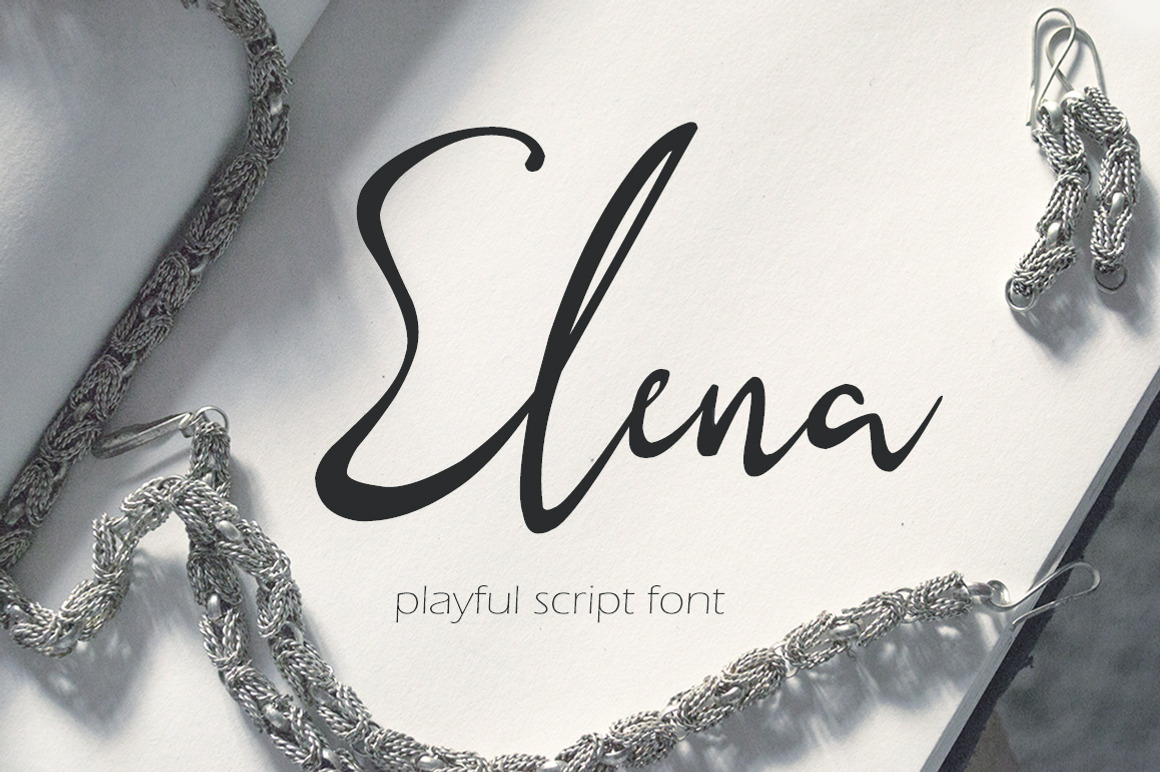
Elena - Playful Script Font is perfect for children's book covers, playful brand logos, birthday party invitations, craft project materials, whimsical greeting cards, toy packaging designs, childcare center signage, creative workshop branding, fun social media graphics, and cheerful educational materials.
What makes Elena - Playful Script Font so exciting is its delightful ability to bring joy and whimsical charm to any design project through its bouncy, hand-lettered personality. This enchanting script typeface captures the carefree spirit of childhood creativity with letterforms that dance and skip across the page like playful children at recess. The font's organic curves and spontaneous character variations perfectly embody themes of fun, creativity, and innocent joy, making it an essential choice for brands and projects that celebrate the lighter side of life and the magic of imagination.
Elena - Playful Script Font comes in multiple font families including Regular, Bold, Light, Italic, Condensed, Extended, Bouncy, and Flourished variations. Each family member maintains the core playful characteristics while offering different energy levels and decorative approaches to suit various whimsical design requirements.
The Elena - Playful Script Font Free Download provides designers with an exceptional resource for creating heartwarming materials that instantly connect with audiences seeking joy and authenticity. This remarkable typeface stands out through its unique ability to communicate themes of happiness, creativity, and genuine human connection. Whether you're designing children's products, crafting feel-good marketing campaigns, or developing creative workshop materials, this font ensures your message radiates warmth and playful energy.
The hand-crafted imperfections in Elena - Playful Script Font make it particularly effective for projects requiring authentic, personal touches that stand out in our increasingly digital world. Its charming irregularities work beautifully across both digital platforms and handmade craft applications, maintaining its delightful personality whether used for large storefront signs or intimate handwritten notes.
Creative professionals working with family-oriented brands appreciate how Elena - Playful Script Font transforms ordinary text into delightful expressions of joy and creativity. The typeface's cheerful character set includes special decorative swashes and playful ligatures that enhance the overall whimsical atmosphere of any design project.
For design professionals serving creative industries, children's markets, and lifestyle brands, Elena - Playful Script Font serves as the perfect tool for establishing memorable visual identities that capture the infectious joy and creative spirit that makes life truly magical.